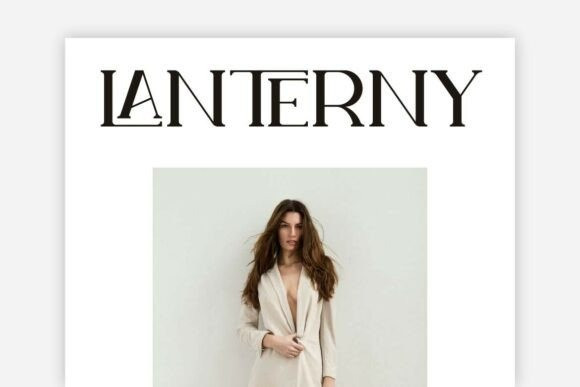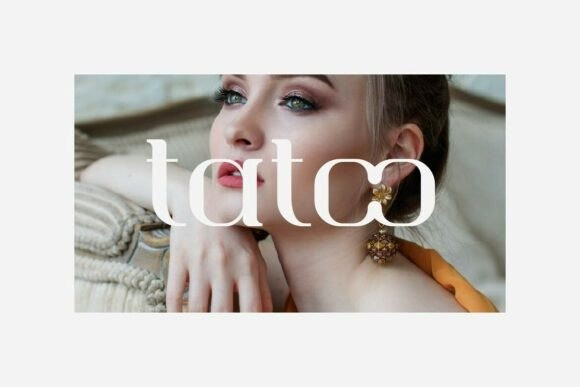
Maquela Font
Marquela Font is a refined serif font that combines classic beauty with modern elegance. Featuring sharp serifs, graceful curves, and balanced proportions, Marquela exudes luxury and professionalism, making it perfect for high-end branding, editorial layouts, fashion lookbooks, packaging, and wedding invitations.